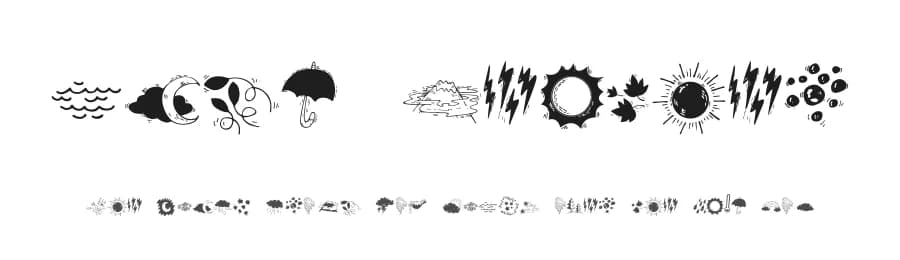
About Miny Weather Font
Miny Weather Specifications
| Font Family | Miny Weather |
| Full Name | Miny Weather |
| PostScript Name | MinyWeather |
| Designer | ISNAYONO |
Miny Weather Font is a versatile dingbats font that works for both headings and body text. Pair it with a contrasting sans-serif or serif font to add visual interest and a clear distinction between titles and body copy.
Miny Weather Font